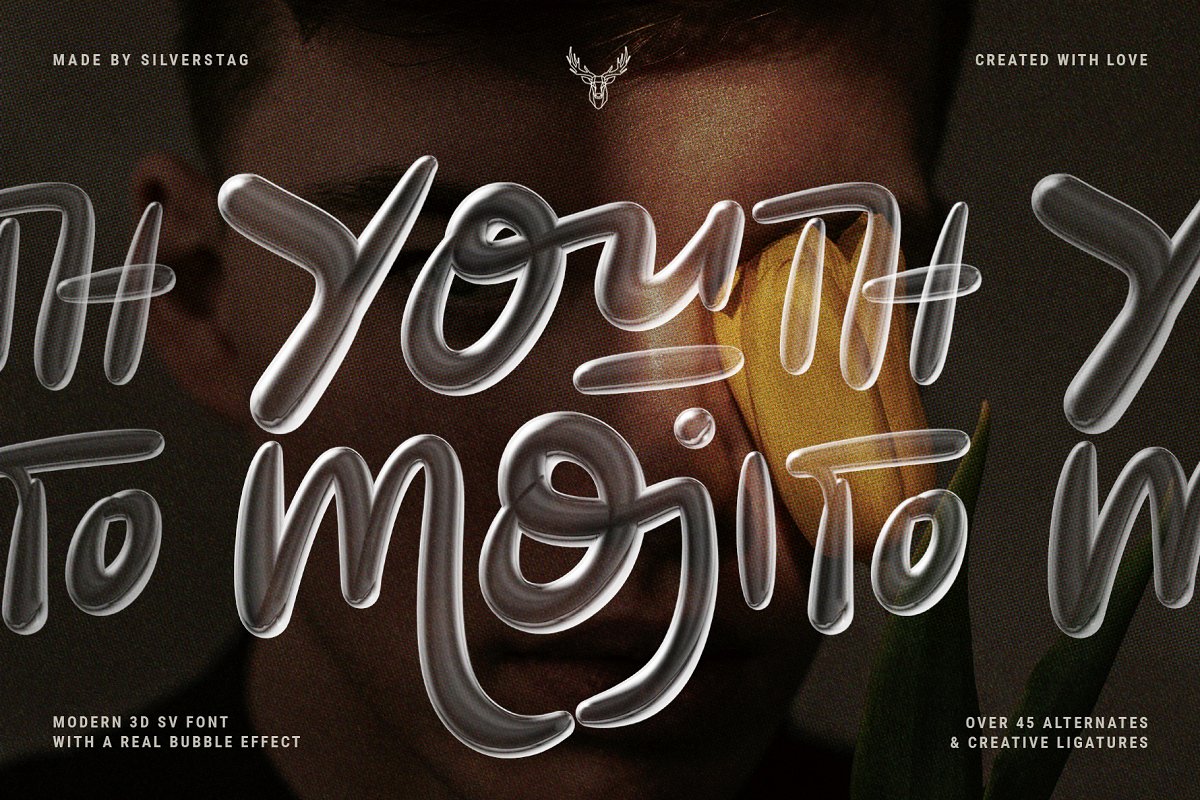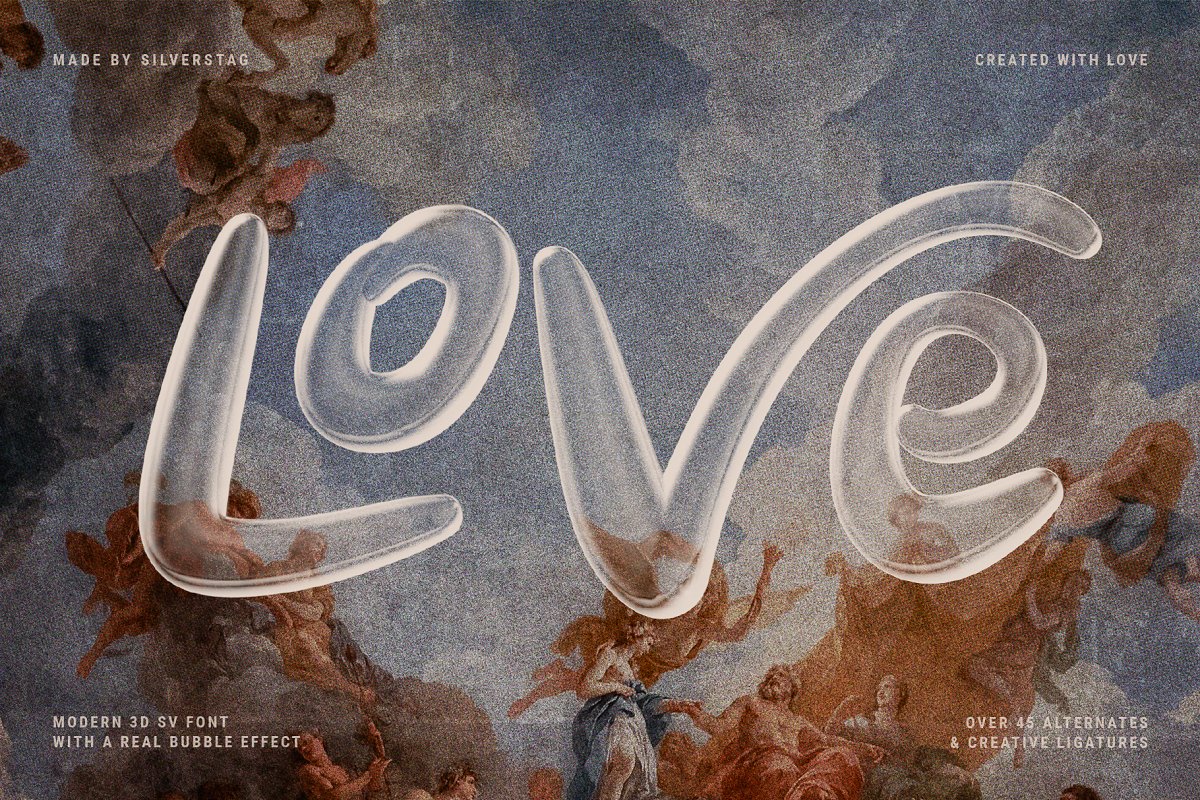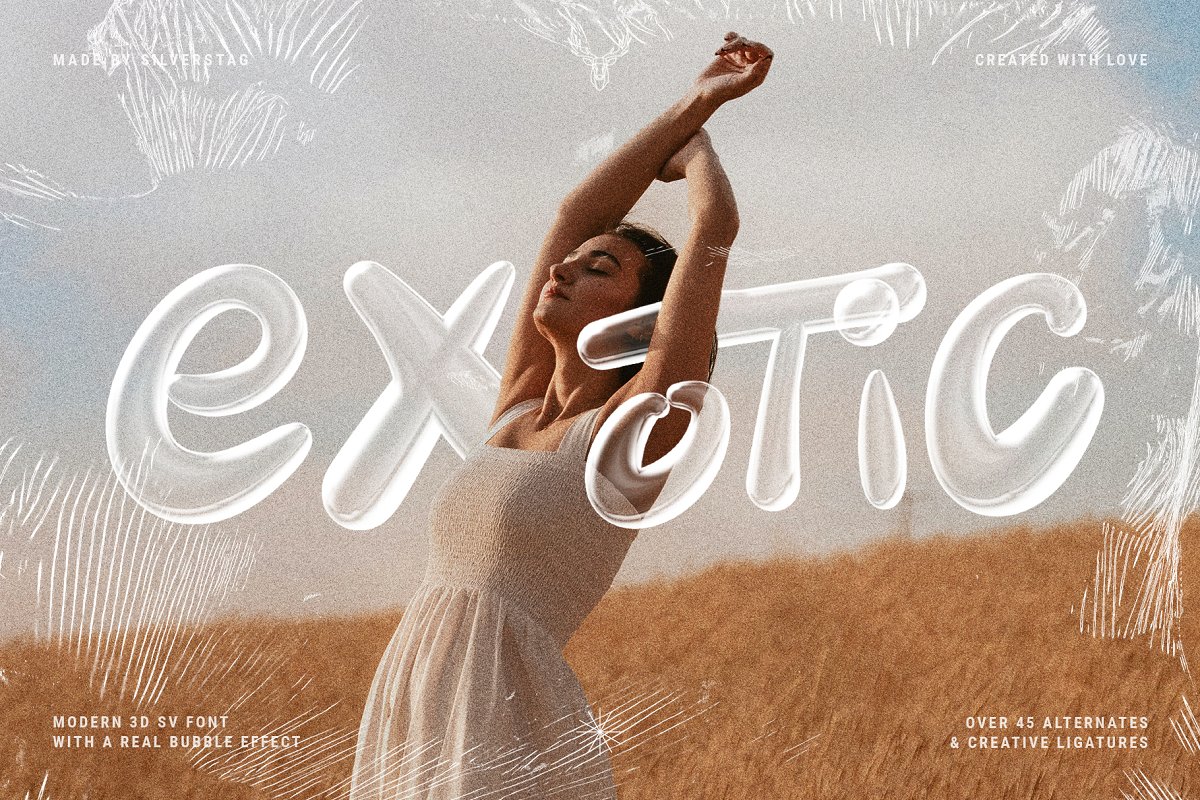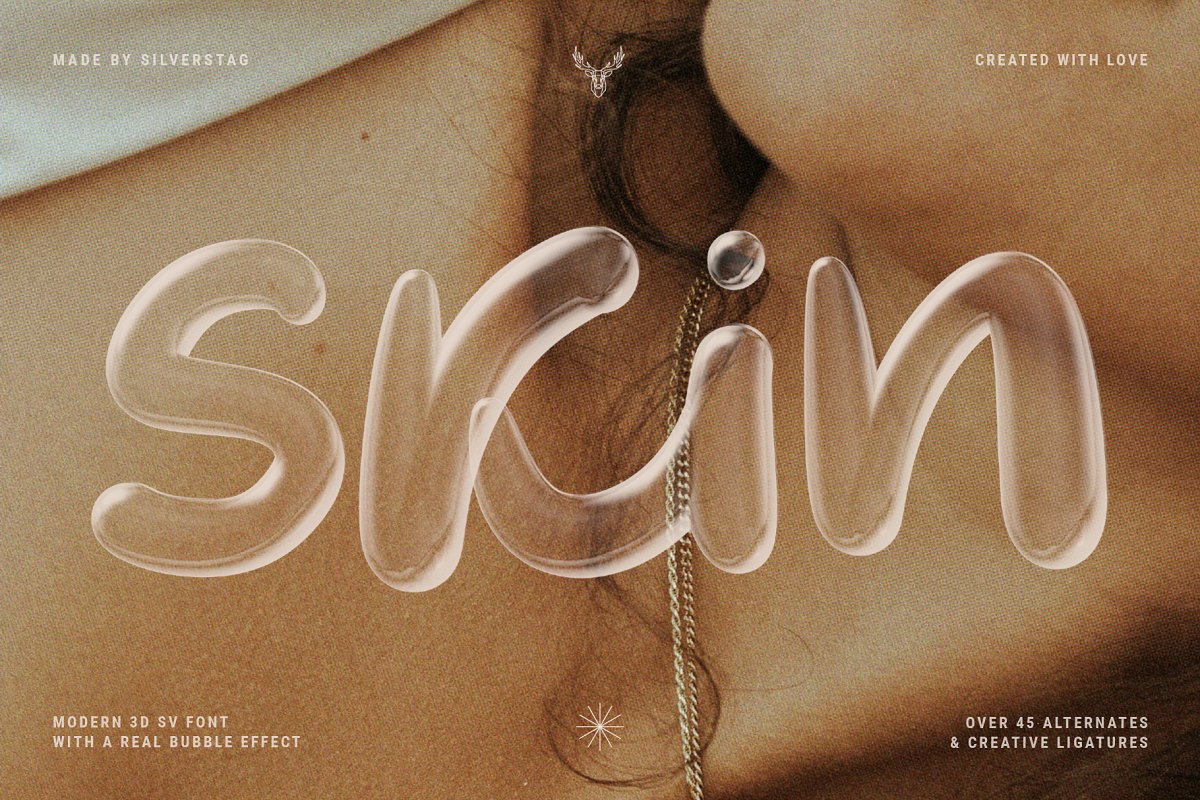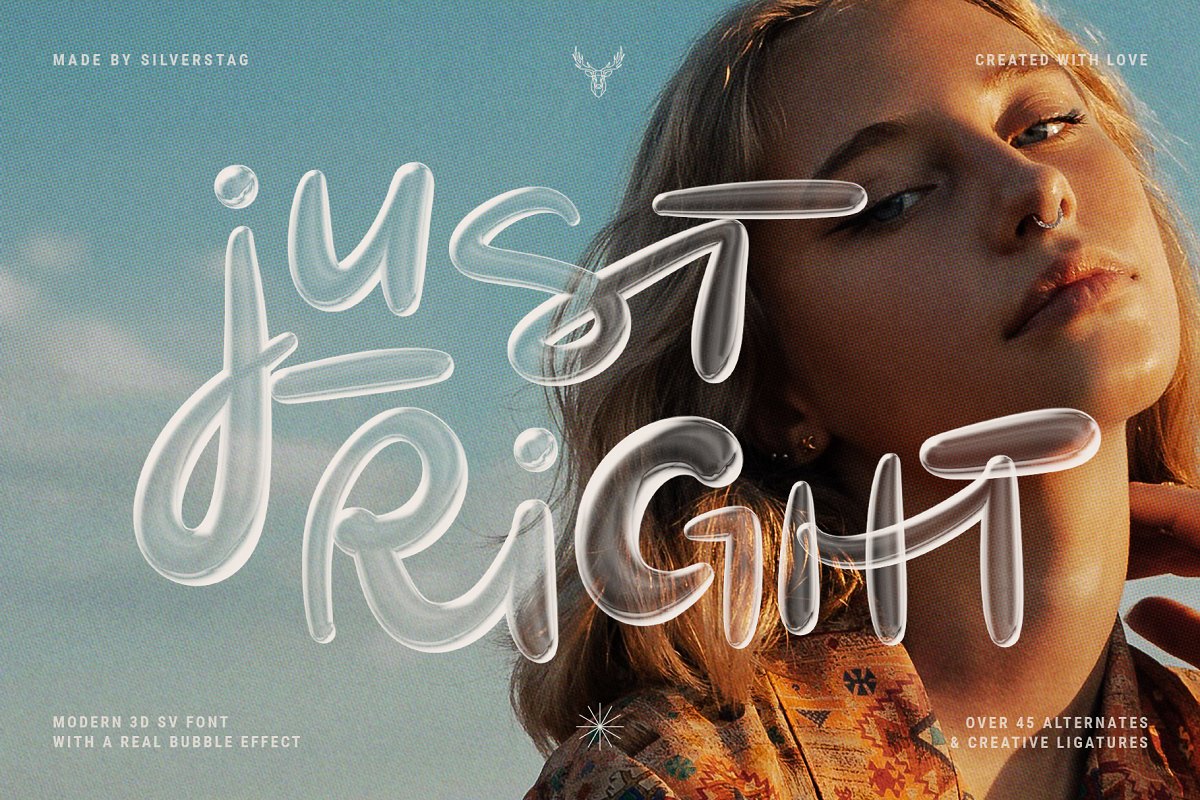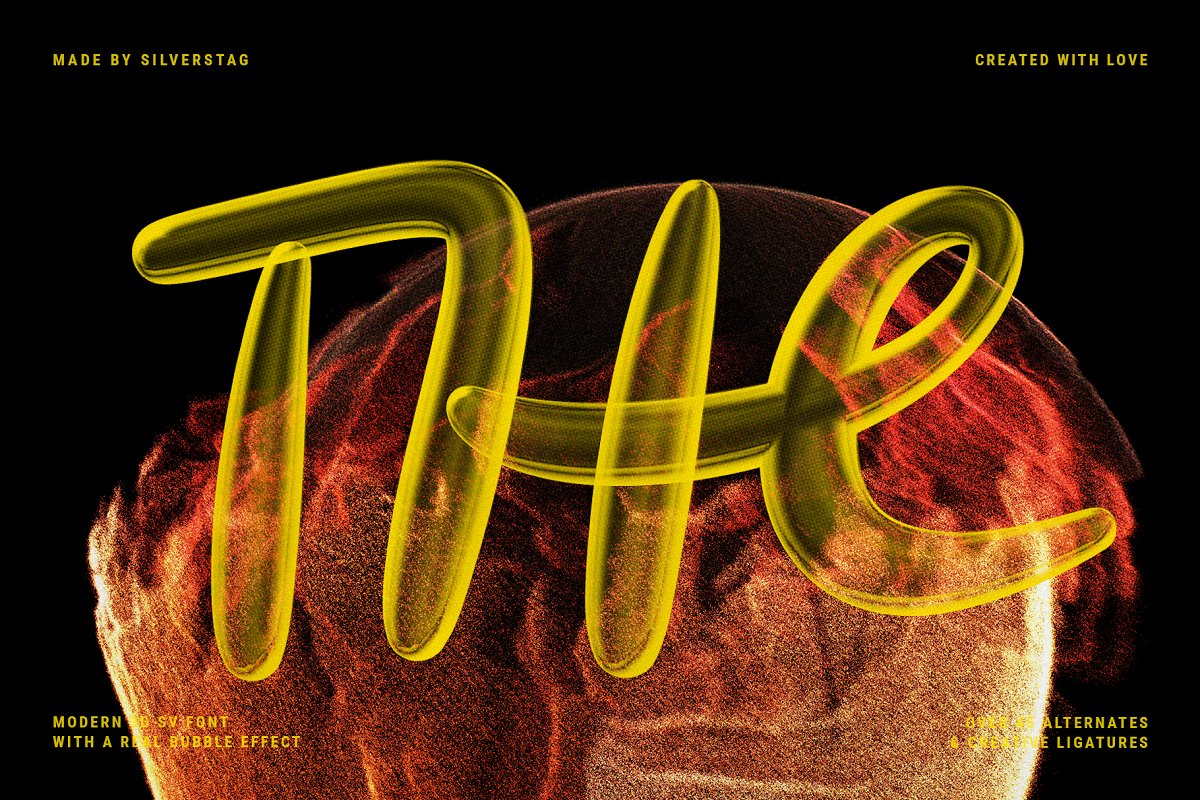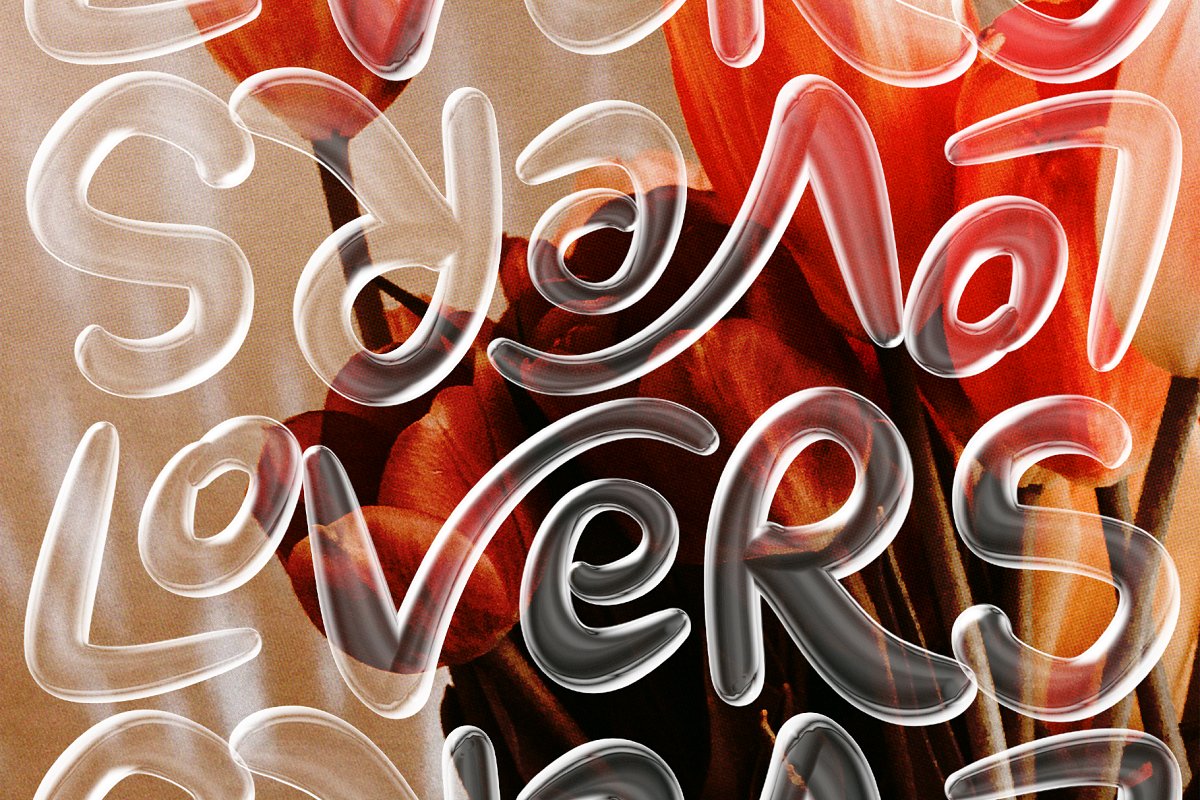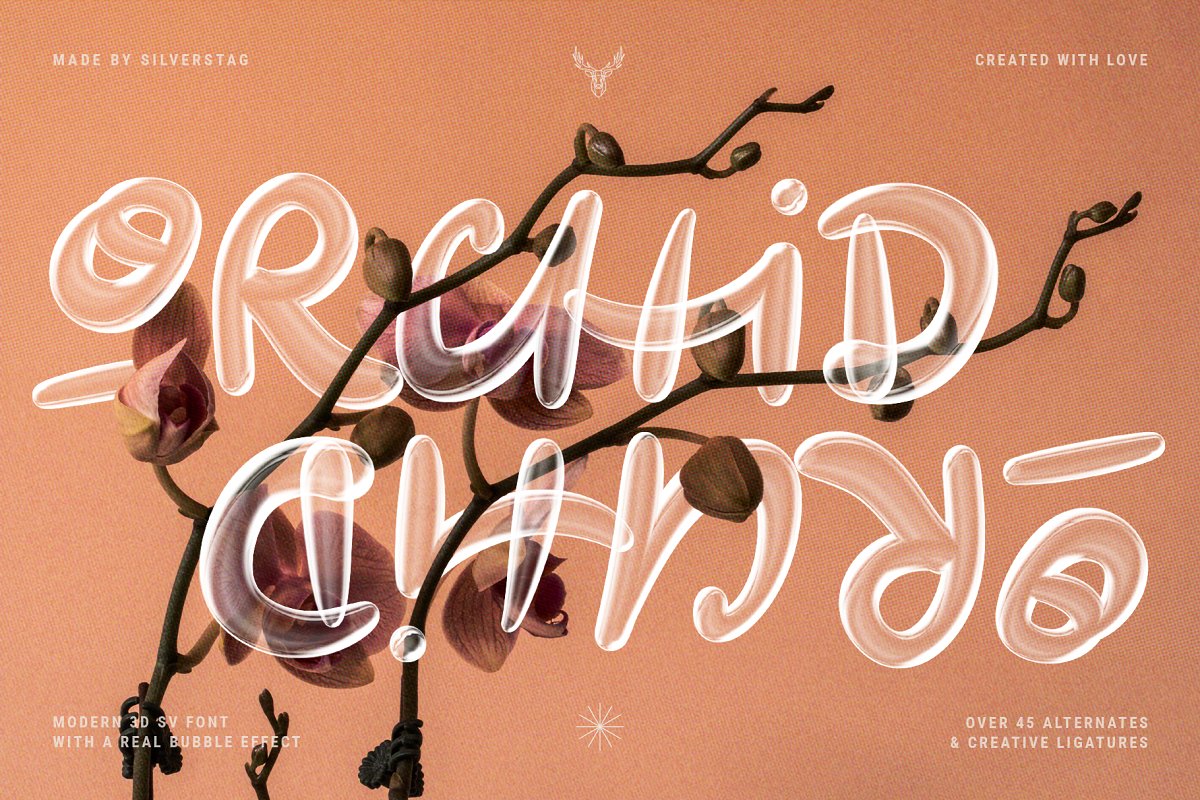
About the YOUTH MOJITO A D Bubbly SVG Font
Are you ready for a brand new look and unique perspective in your typography? Look no more, YOUTH MOJITO is a 100% unique SVG font with a bubbly look, perfect for your modern posters, graphics, presentations, website and even your logo, It is something I have been working on for quite some time now and I am sure you’ll enjoy it’s unique and playful look! The true bubble look will elevate your work and help you create some new and unique designs